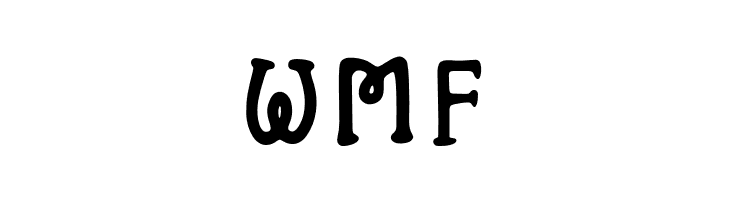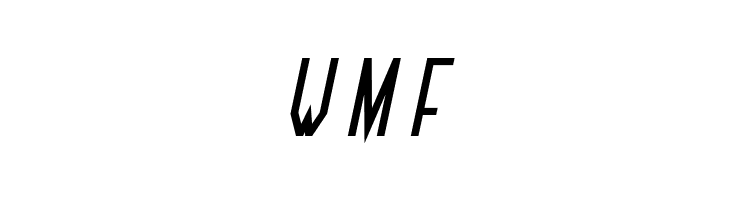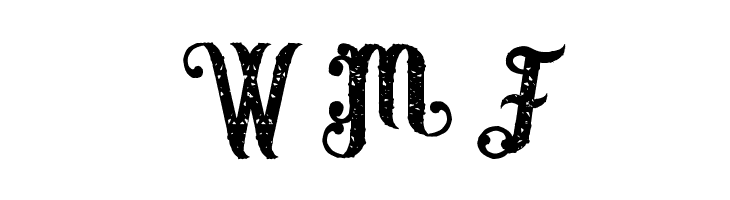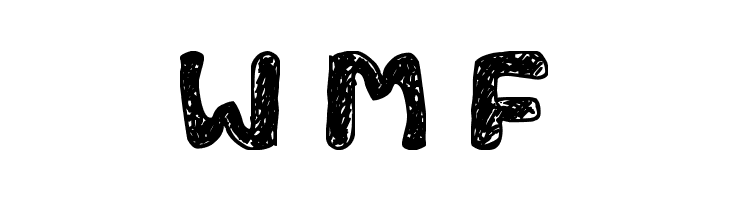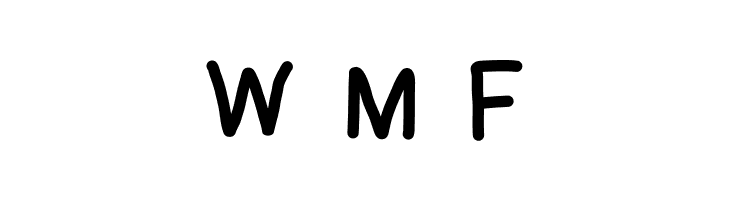
• Fontarian
A playful, hand-drawn font with bold, rounded characters and a whimsical style.
• FontarianSparkling
A playful, decorative font with sparkling star accents.
• FONTESDA TFB
A playful, doodle-patterned font with bold, rounded characters.
• For Winter
An ornate, decorative font with vintage swirls and a distressed texture.
• Forever Together
• Forever Together Sans
A modern, narrow sans-serif font with clean lines and elegant style.
• Forever Together Sans Bold
A bold, geometric sans-serif font with a modern, condensed style.
• Forever Together Sans Bold Italic
• Forever Together Sans Italic
A modern, italicized sans-serif font with sleek, elongated letterforms.
• Forever Together Sans Light
A sleek, modern font with elongated, narrow characters and high contrast.